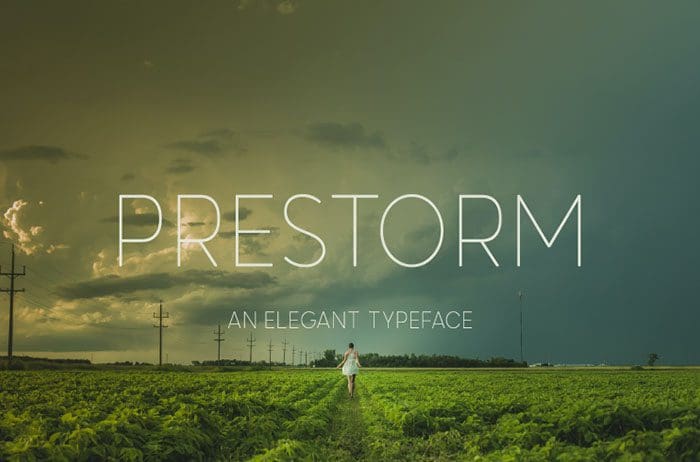
Prestorm Sans Serif Font
Prestorm simplifies elegance into one truly outstanding sans serif font. With its neat and beautiful arrangement of letters, this typeface will look outstanding in both formal and non-formal designs. Thanks to Mas Anis for sharing this font! Take a look at this portfolio for more of his stunning fonts.